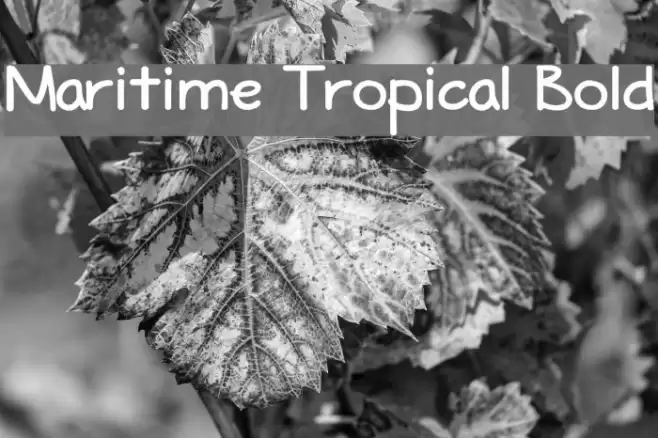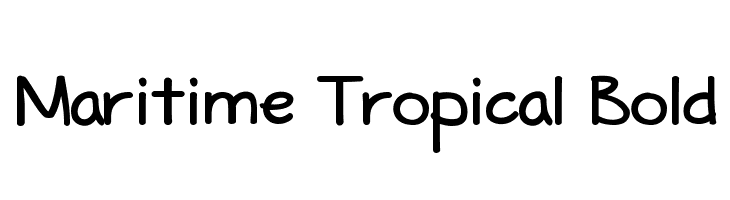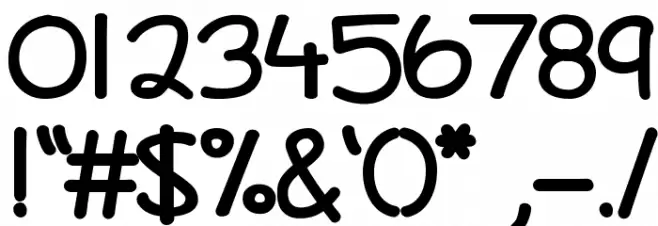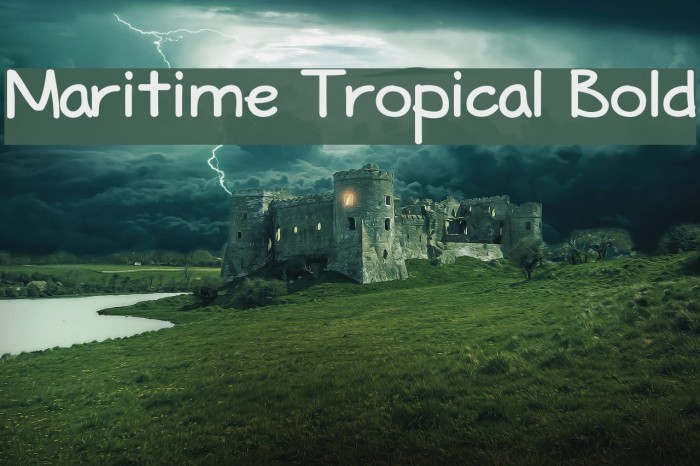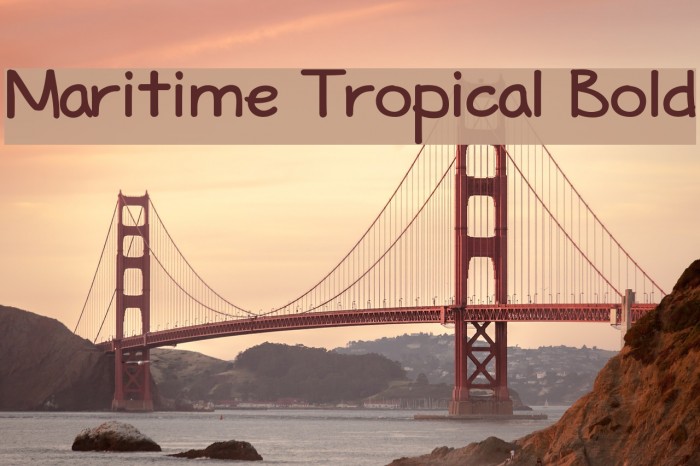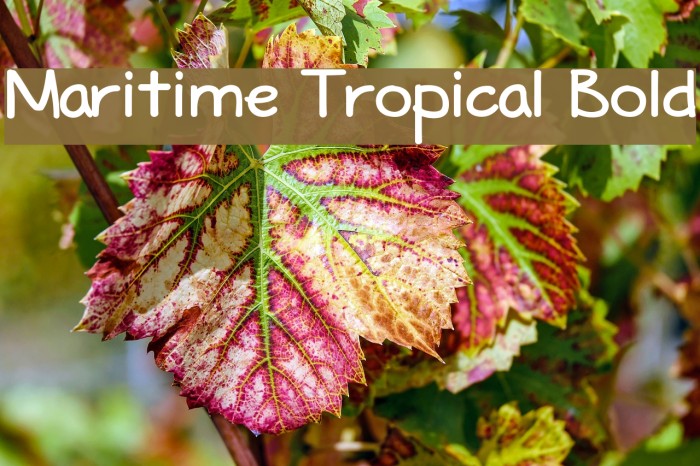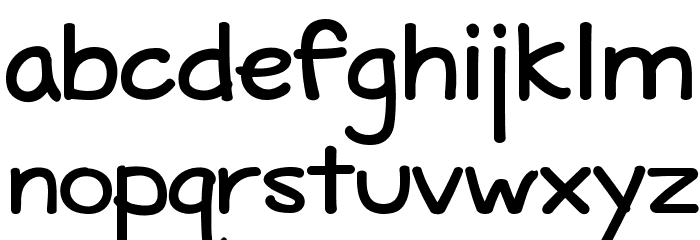
Maritime Tropical Bold Font
Maritime Tropical Bold Description
This font features a playful and rounded style, characterized by its bold and smooth curves. The letters are evenly spaced, with a consistent stroke width that gives it a friendly and approachable appearance. The uppercase letters are slightly taller than the lowercase, maintaining a uniform height that enhances readability. The numerals are clear and distinct, matching the overall rounded aesthetic. Special characters are well-integrated, maintaining the same playful style. This font's design is ideal for creating a warm and inviting atmosphere.
A bold, rounded font with a playful and friendly style from Uncategorized fonts.
- Proposed Projects: Ideal for children's books, playful branding, casual invitations, and friendly social media graphics.
- Overall Style: Playful
- Use Case: Headlines, Logos, Invitations